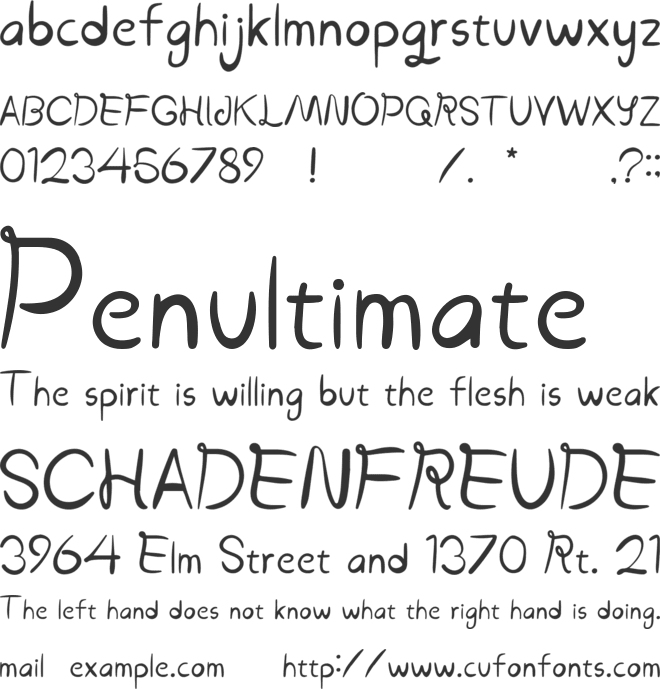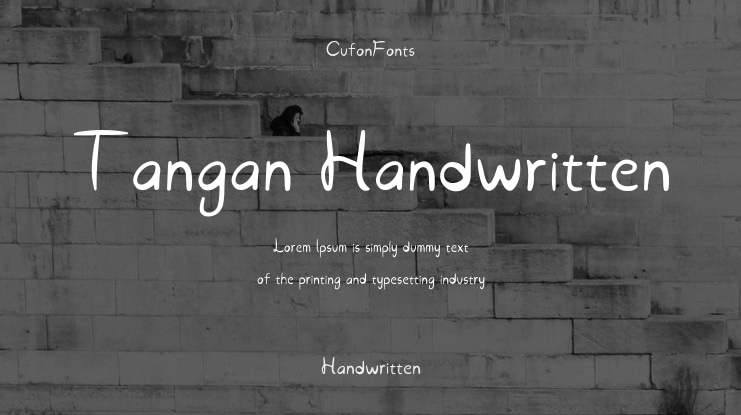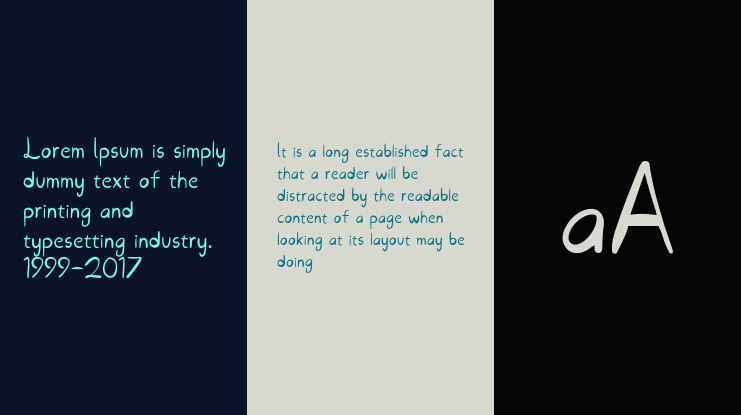
Tangan Handwritten Font
Tangan Handwritten is a thin, casual handwritten display font with a light, natural stroke — like a quick, gentle scribble. Its unpolished, authentic letterforms bring a warm, personal touch to everyday journals, book titles, minimalist branding, and social media graphics. The simple, versatile characters suit a wide range of modern creative designs.